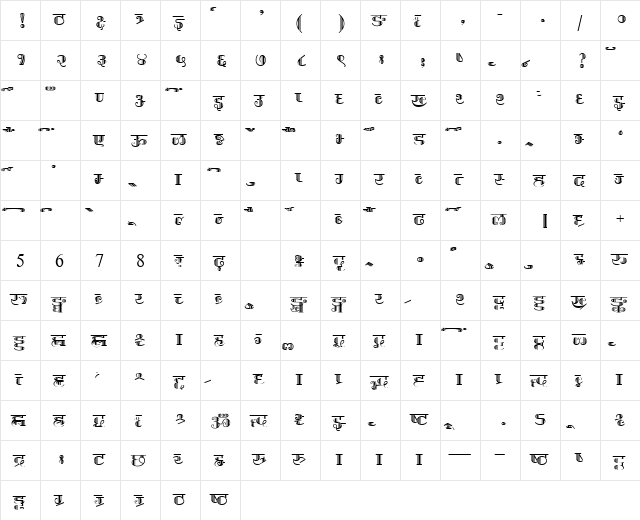
AkrutiDevPayal Normal Font Preview
AkrutiDevPayal Normal
AkrutiDevPayal Normal Font Details
Design Context for AkrutiDevPayal Typeface
AkrutiDevPayal is a composed and adaptable typeface that performs quietly and consistently across a wide range of design contexts.